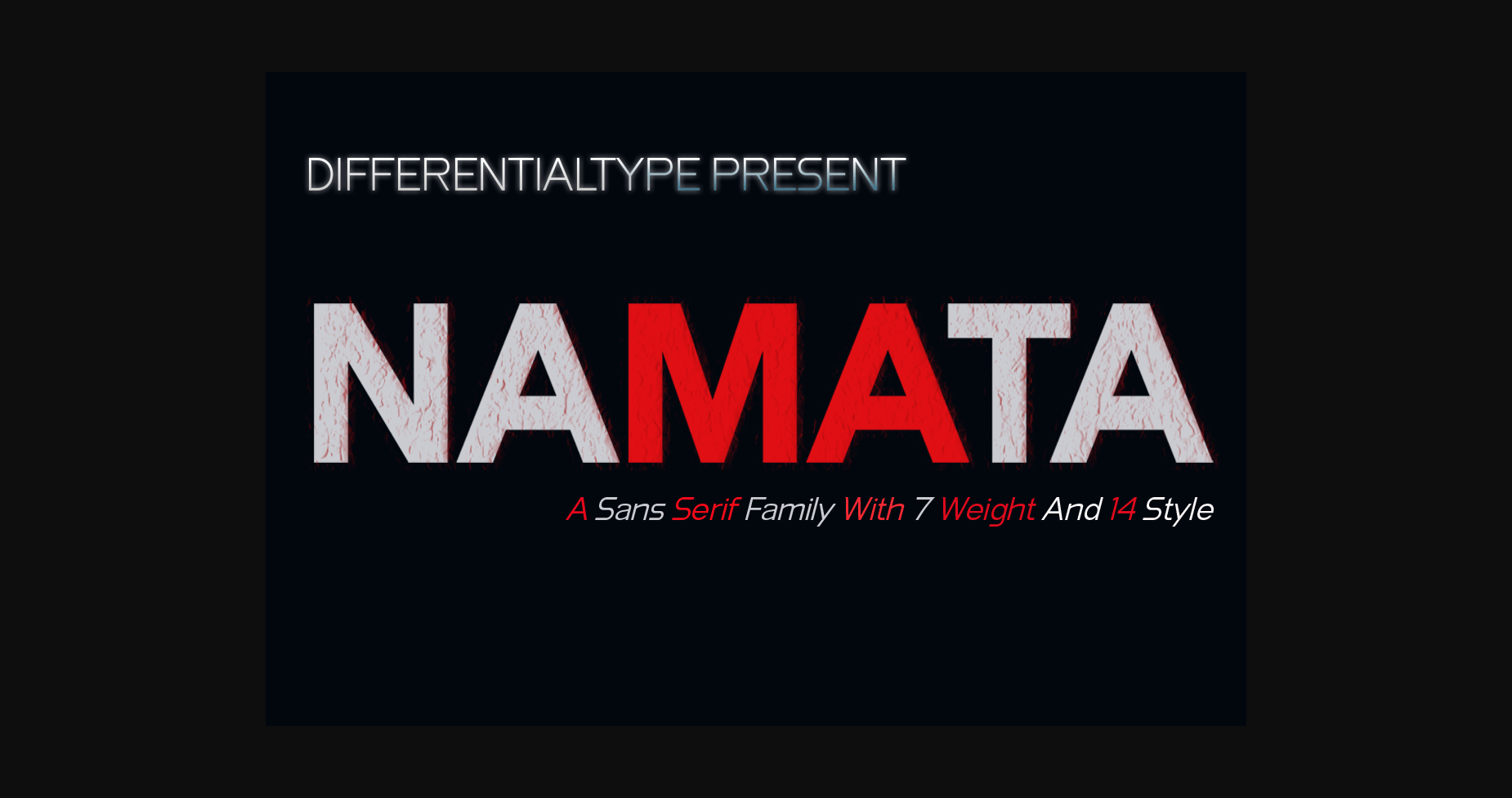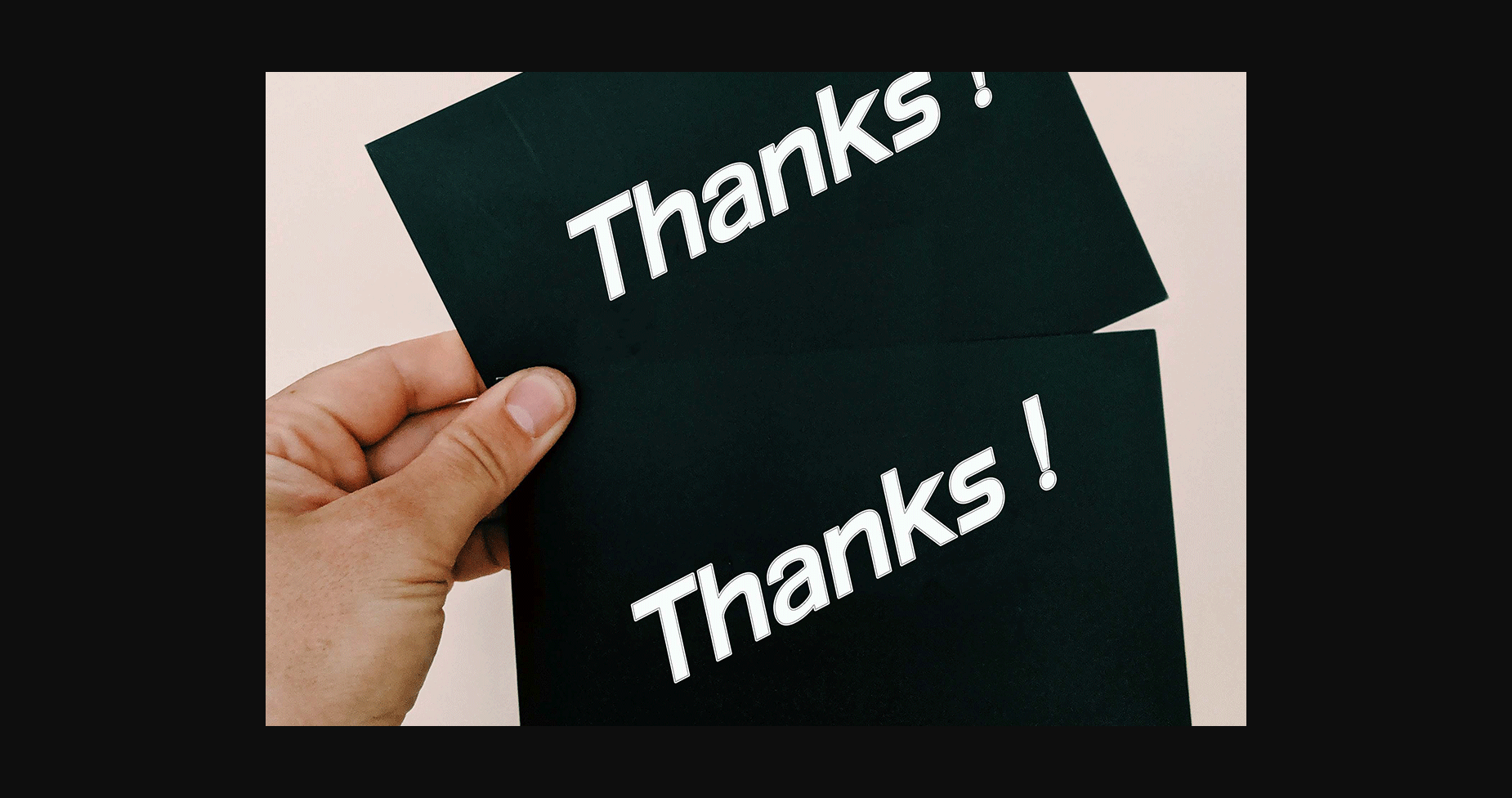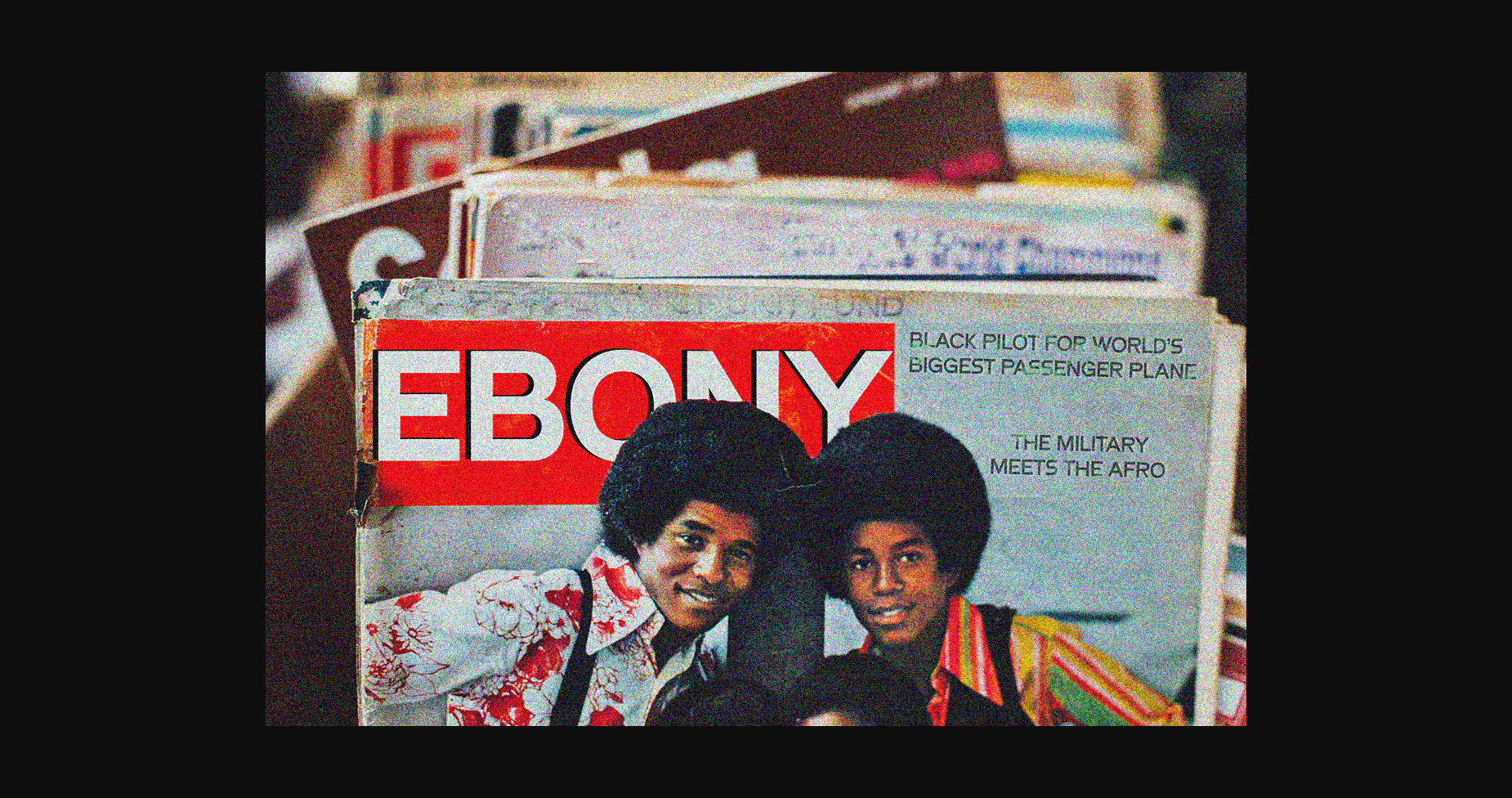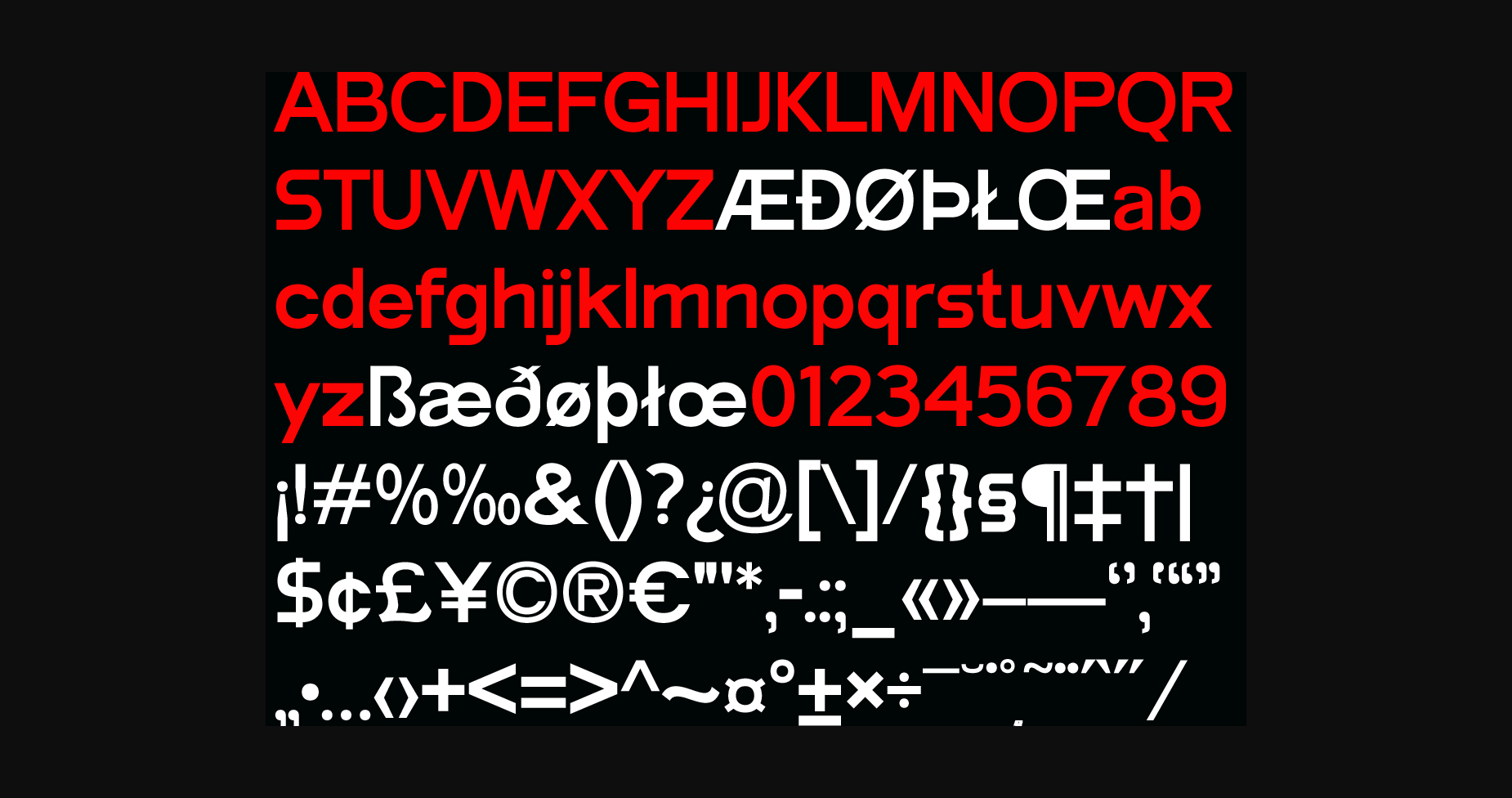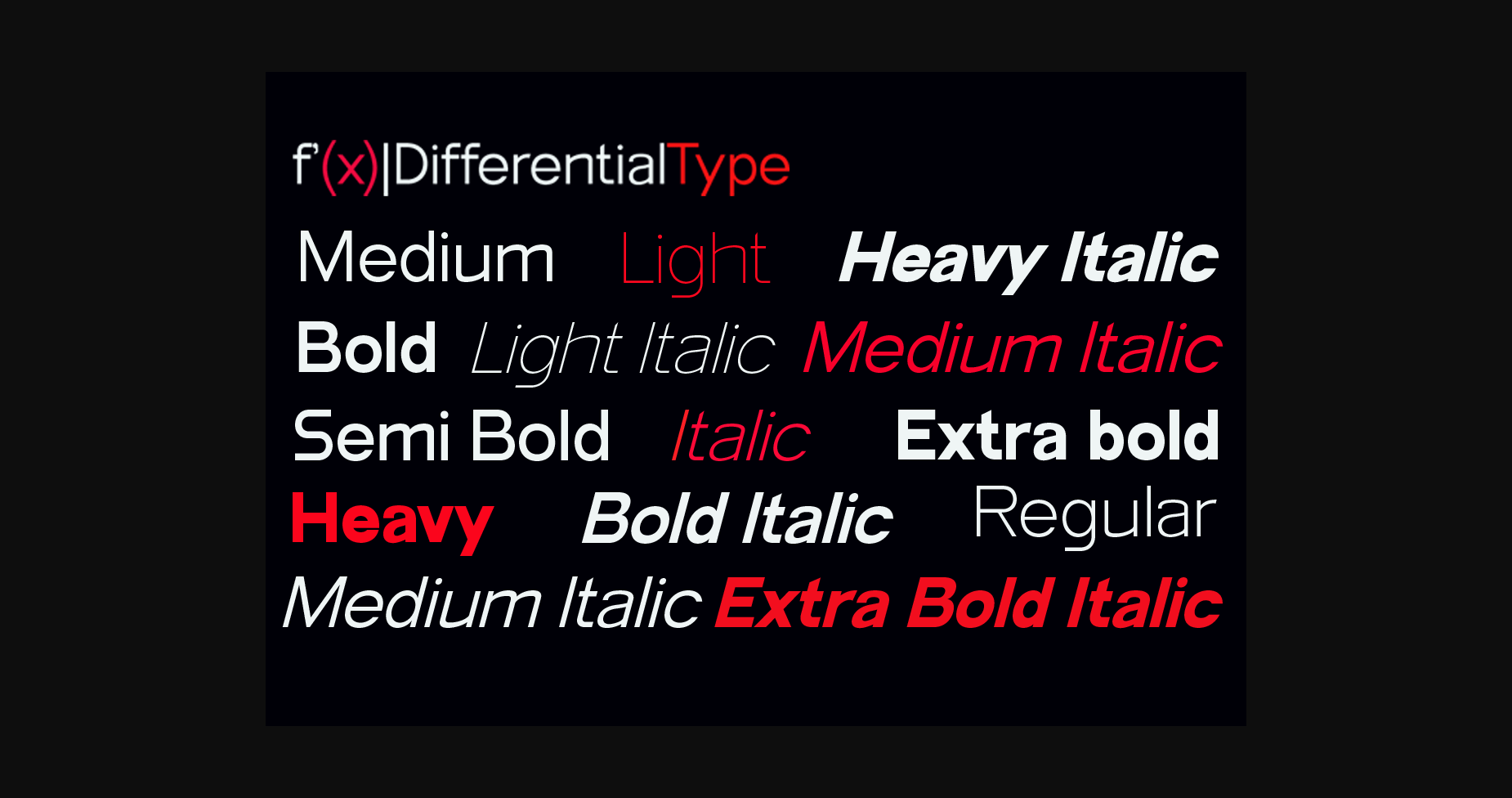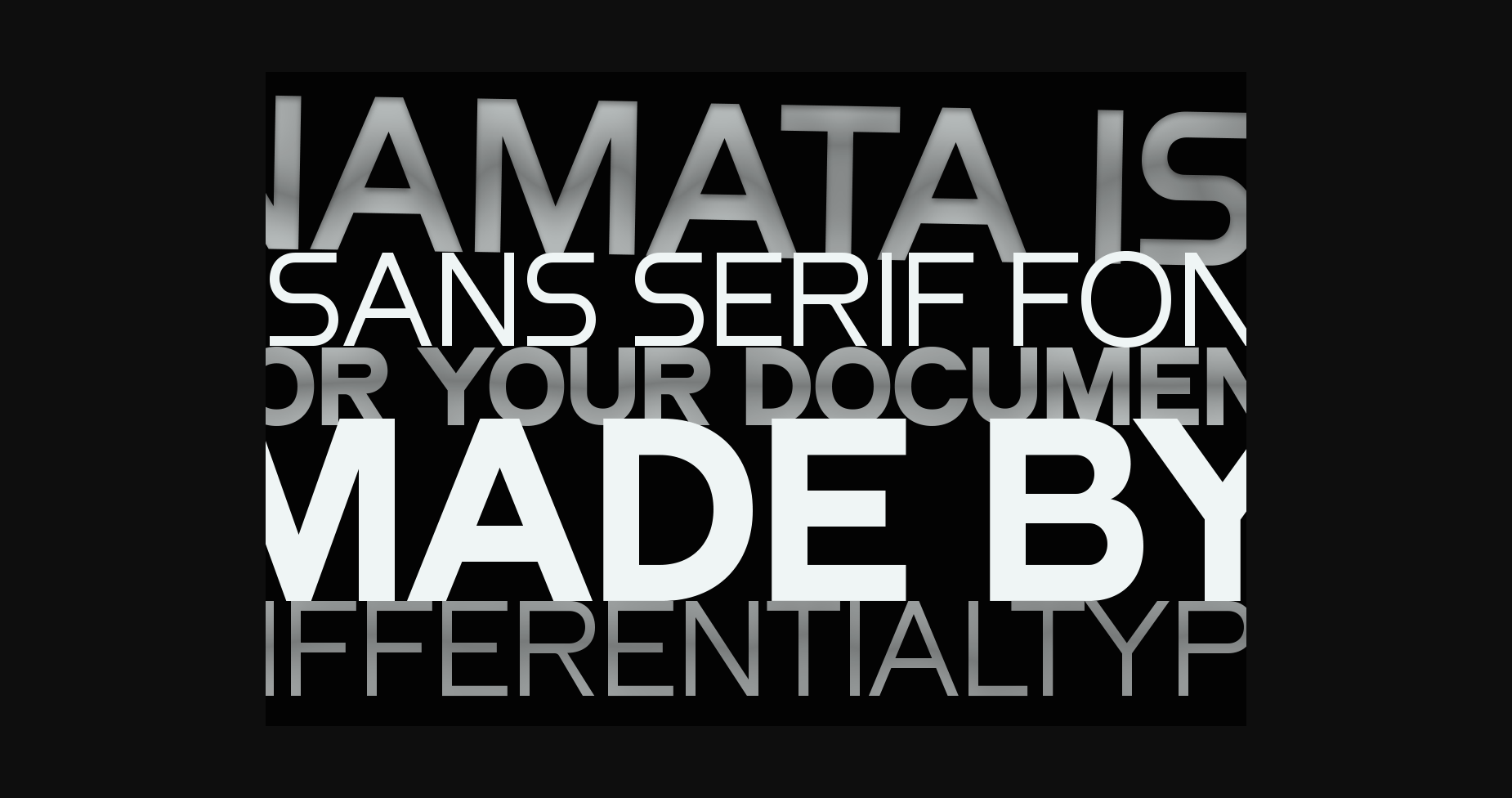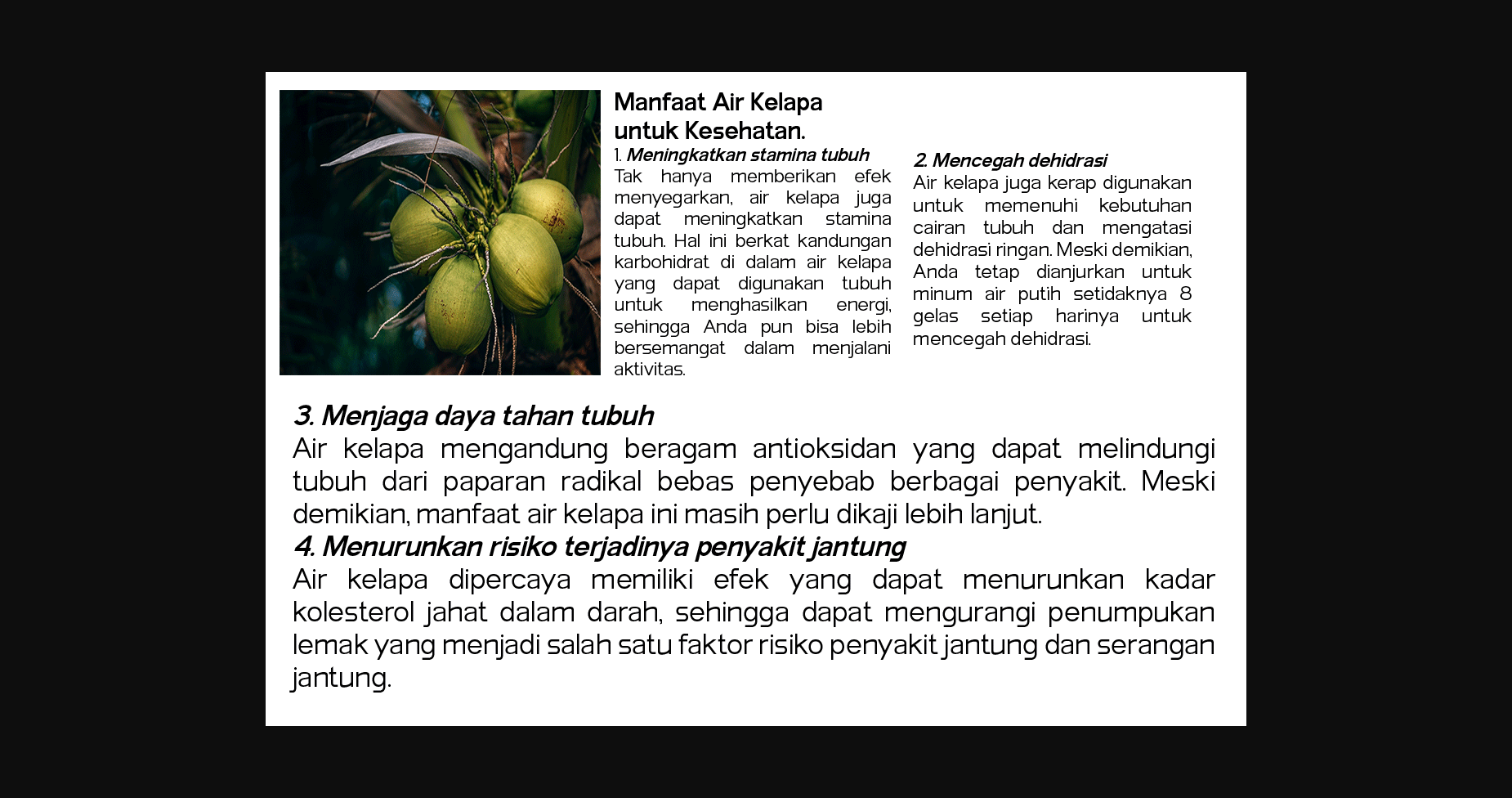
Namata Font
About Namata Font
Namata is a bold sans serif font that comes in many weights and styles. It is perfect for documents, blogs, social media, marketing campaigns, and many other projects!